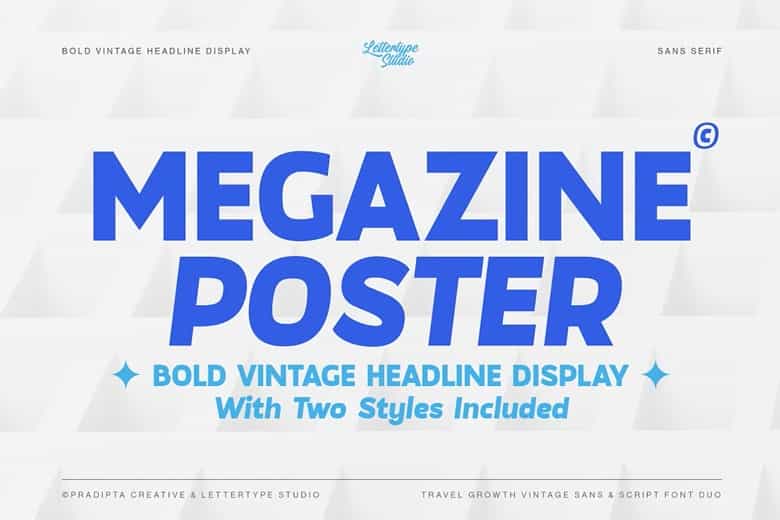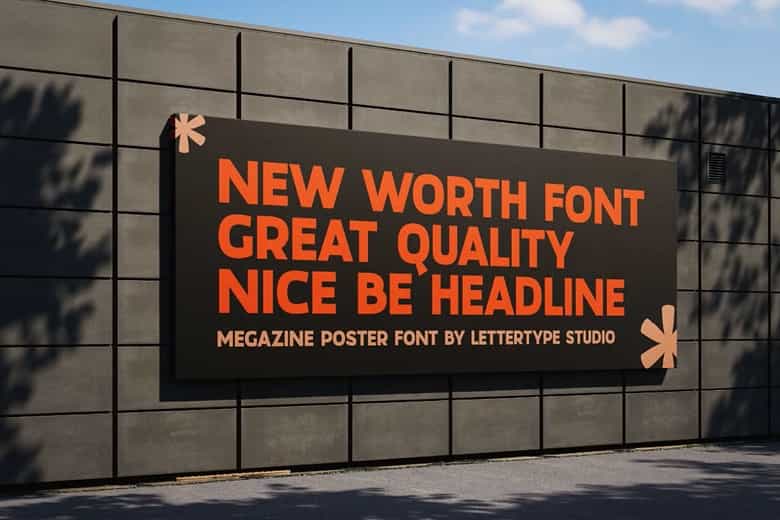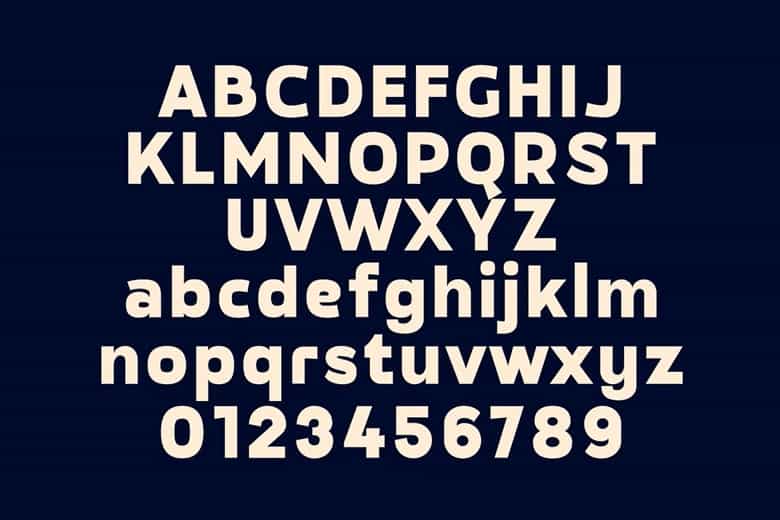
Megazine Poster Font
Megazine Poster is a new vintage headline display sans serif typeface that seems to look thirty so it was inspired after the 60s and 70s graphic designing styles. Readability is superb in both purpose and style, but it has a modern and rather powerful look and feel that would suit headlines very well indeed.